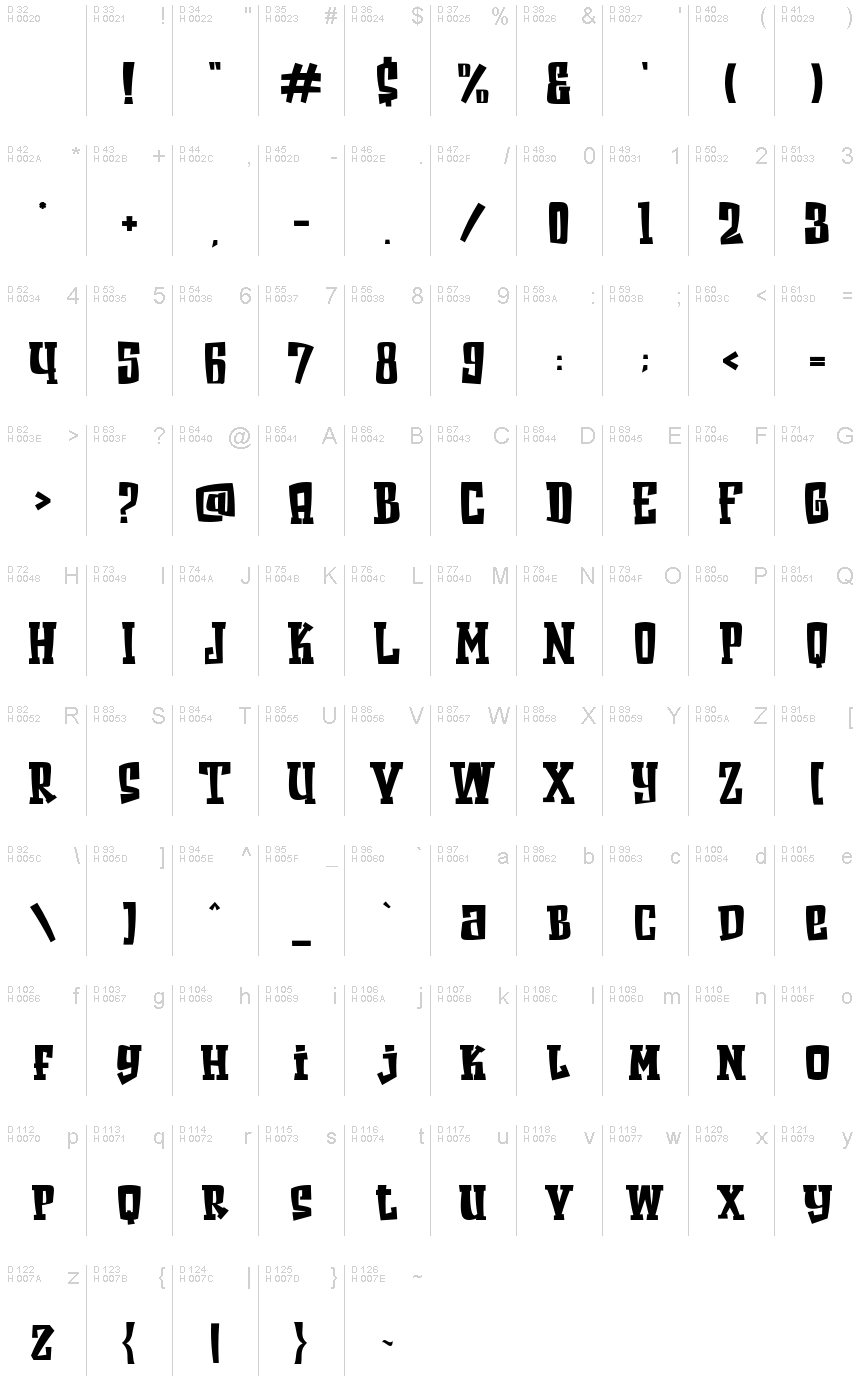
Restoe Iboe
Restoe Iboe, a captivating creation from the talented team at Green Adventure Studio, is a font that exudes a whimsical, cartoon-inspired charm. Its condensed width and distinct letterforms command attention, effortlessly conveying a sense of playfulness and energy. This font's striking aesthetic appeals to designers seeking to infuse their projects with a touch of lighthearted personality, whether in branding, advertising, or editorial design.
Restoe Iboe's versatility shines through, making it a versatile choice for a wide range of design applications. Its playful yet legible nature lends itself well to logo design, packaging, and children's media, where its captivating style can captivate audiences and amplify the desired tone. Additionally, the font's condensed nature allows for creative layout possibilities, making it a compelling option for headlines, titles, and eye-catching typographic treatments.